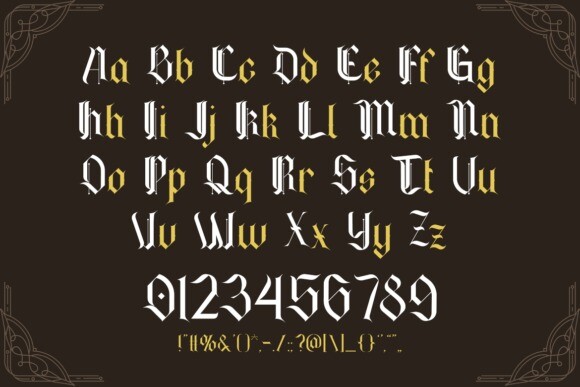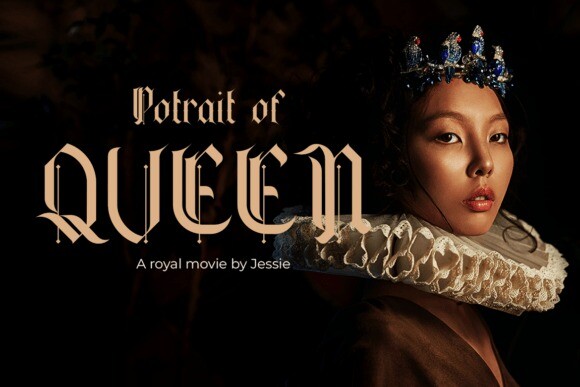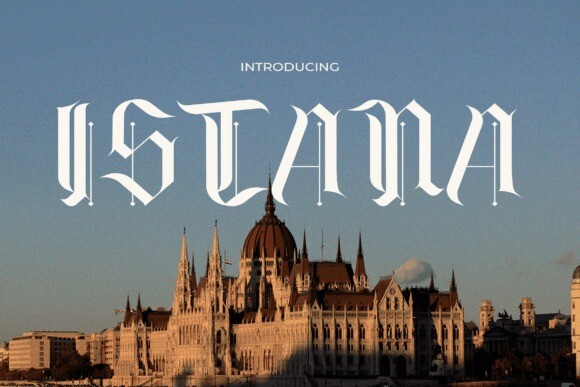
Istana Font
Istana Font, a font that brings forth the splendor and elegance of vintage kingdoms with a captivating modern twist. Each letter in Istana is a masterpiece exuding majesty and power, transporting you back to an era when palaces were filled with magnificence and grandeur.
Crafted with meticulous detail, Istana seamlessly blends classic decorative elements with the grace of modern typography, creating an unforgettable visual experience. This font not only evokes the grandeur of kingdoms but also offers limitless flexibility in its usage. Utilize “Istana” to infuse a vintage touch into invitation designs, posters, logos, and various other creative projects requiring a touch of luxurious royalty. With Istana every word becomes a statement, and every design becomes a majestic work of art. Own “Istana” now and create your own unparalleled visual kingdom!